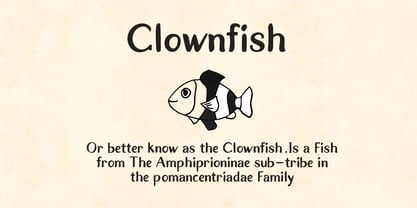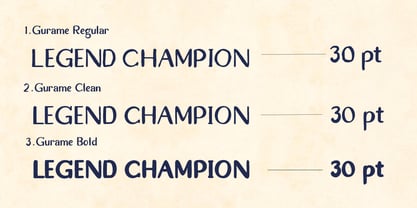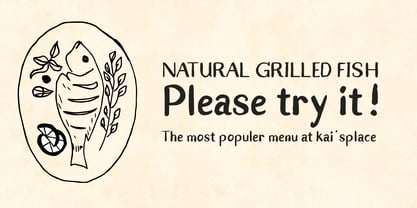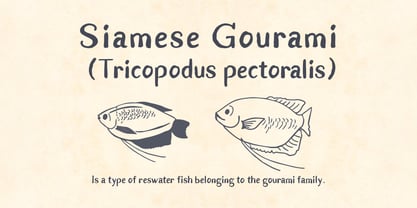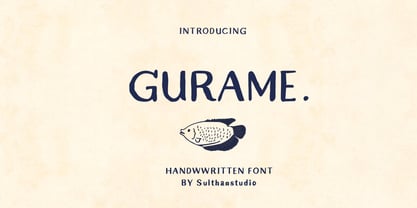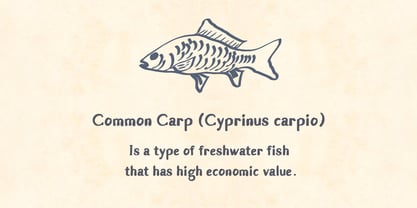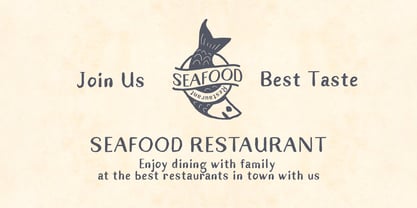
Gurame
by Sulthan Studio
The Gurame Font Family was designed by Nasrullah and published by Sulthan Studio. Gurame contains 3 styles and family package options. More about this family
This Gurame handwritten font is very light with a calm and aesthetic style adding to the natural aura of this font comes with 3 regular, clean and bold styles very easy to combine with the work you are doing that requires a light and aesthetic touch also accompanies fish doodles in regular fonts using a, b, c, d, e, f, g, h, i, j as alternative letters for doodles. The font is easy to use and is equipped with uppercase and lowercase letters, numbers, punctuation and also language support.
Designers: Nasrullah
Foundry: Sulthan Studio